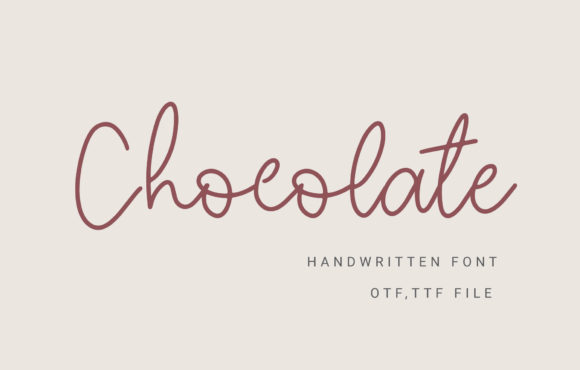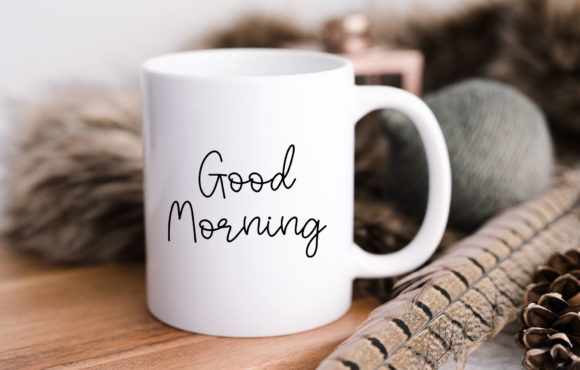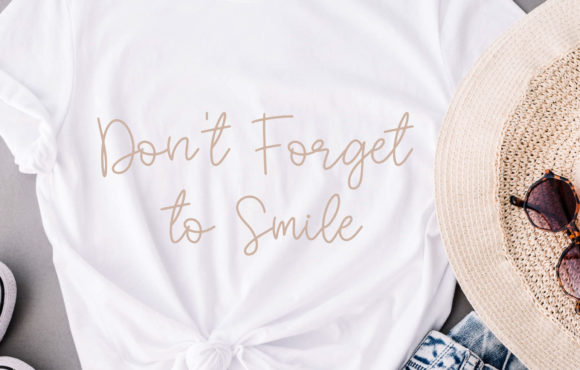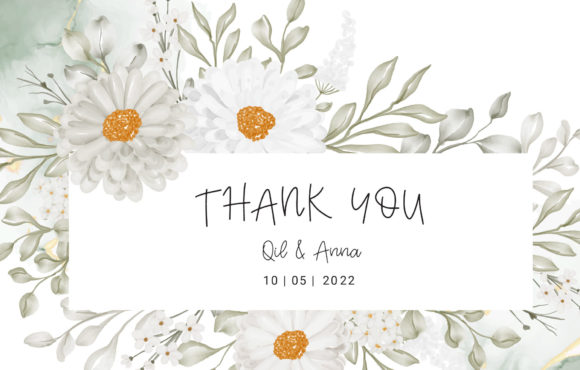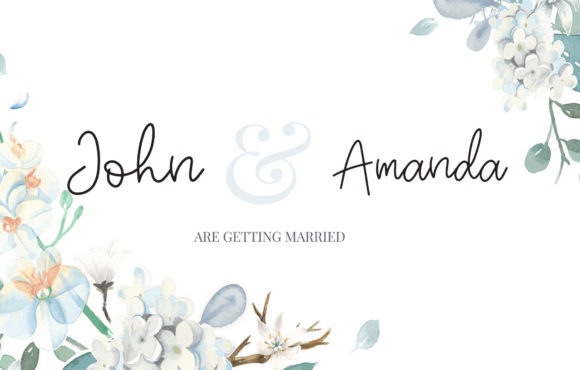
Chocolate Font
About Chocolate Font
Chocolate is a slim and delicate handwritten font. Clean and a little bit quirky, this font is the perfect fit for all of your logos, branding, social media, and crafty DIY projects.